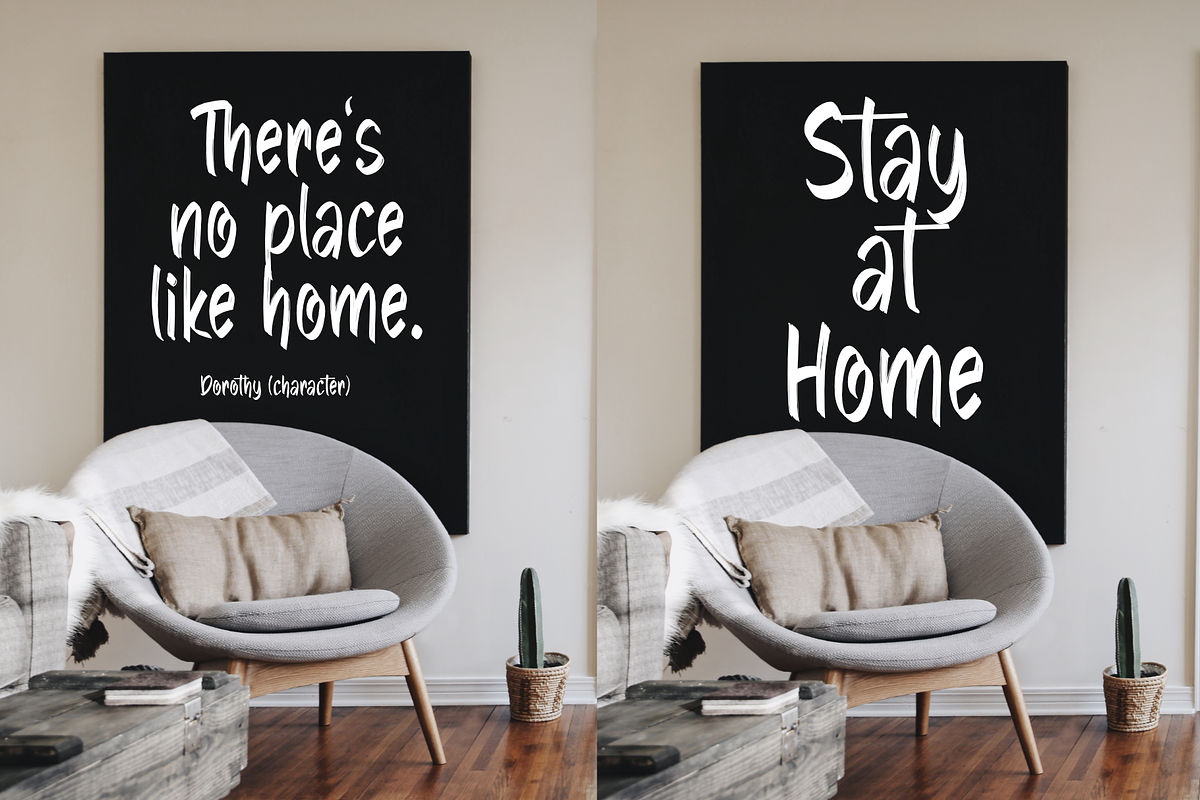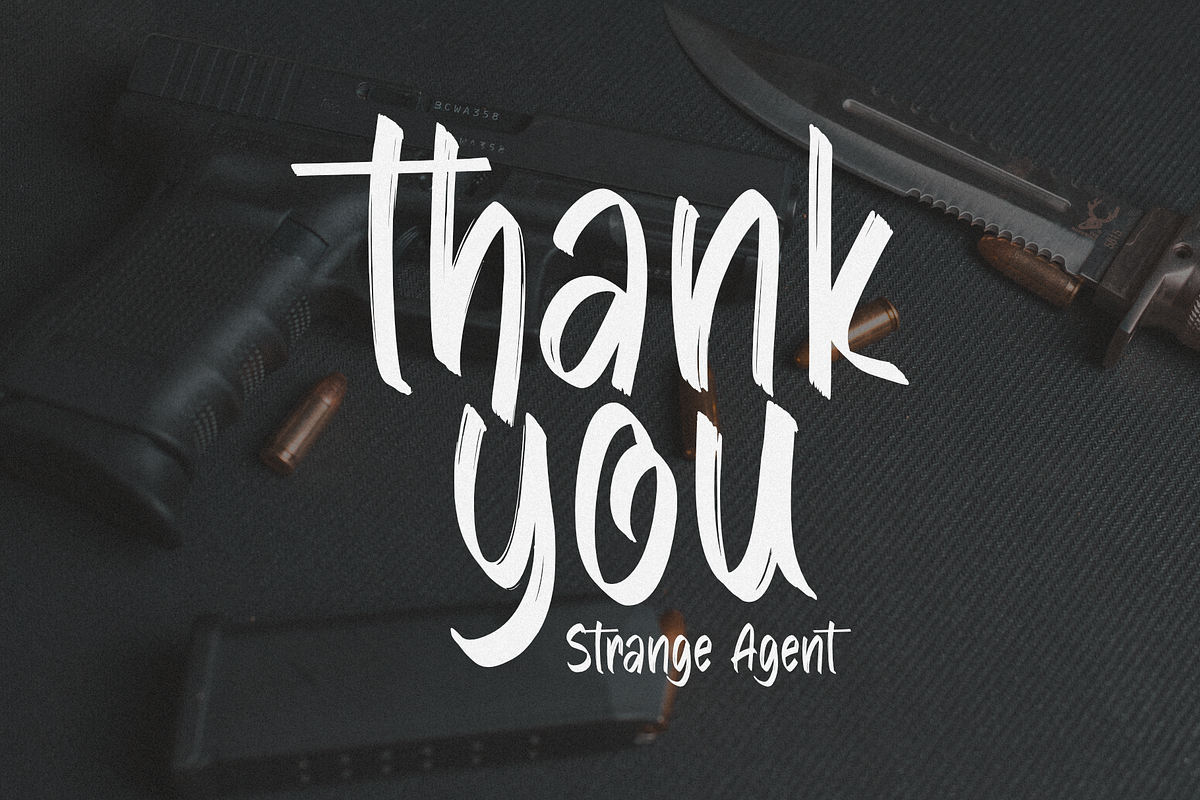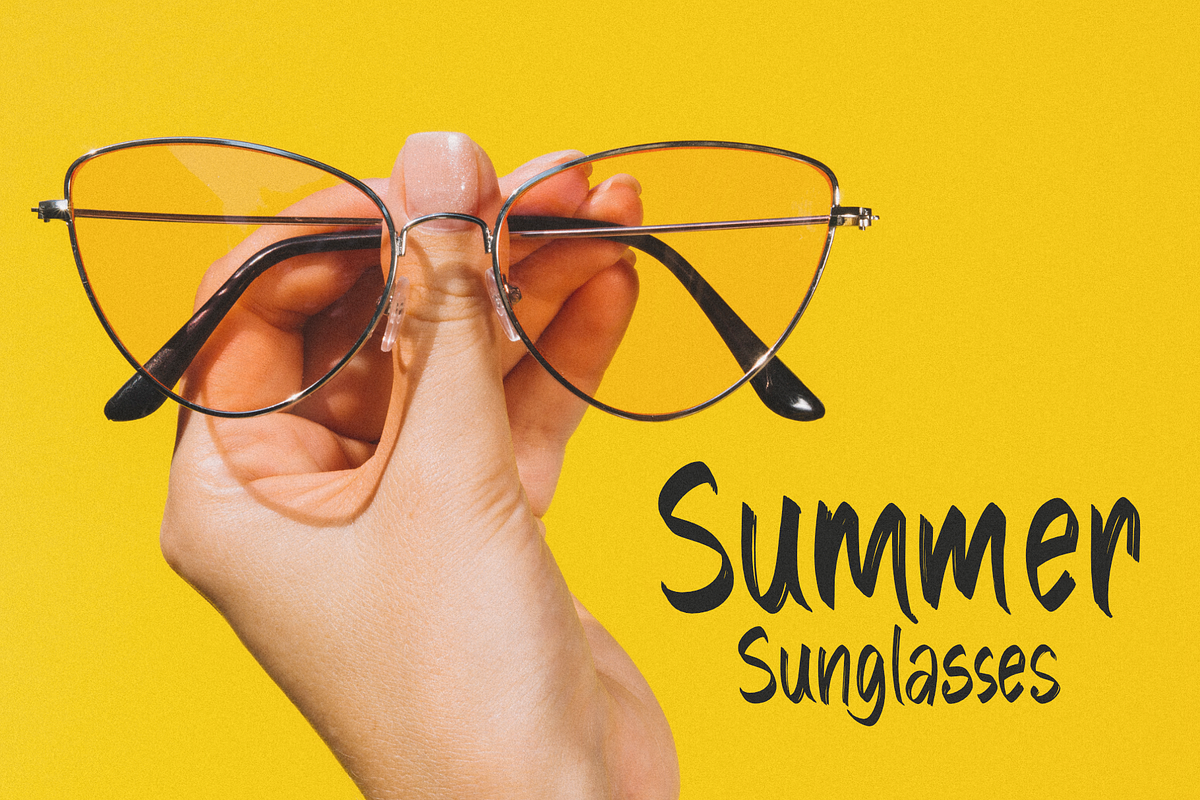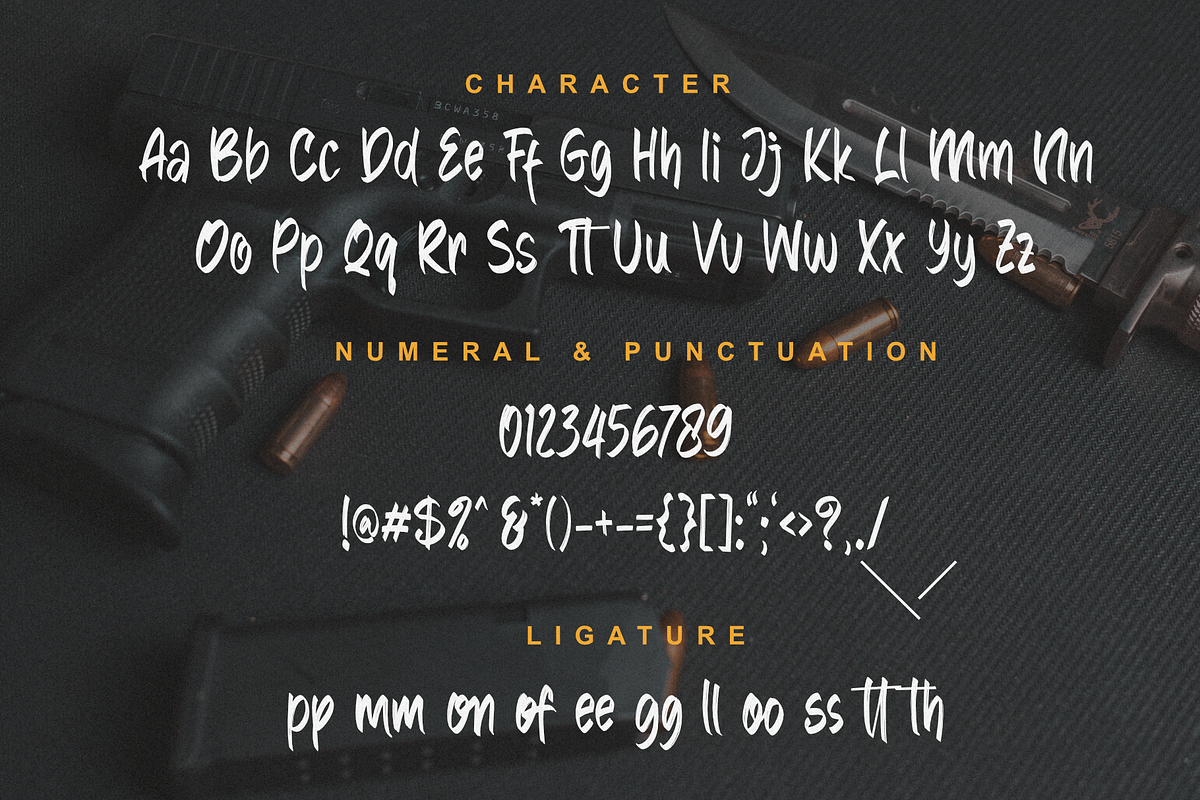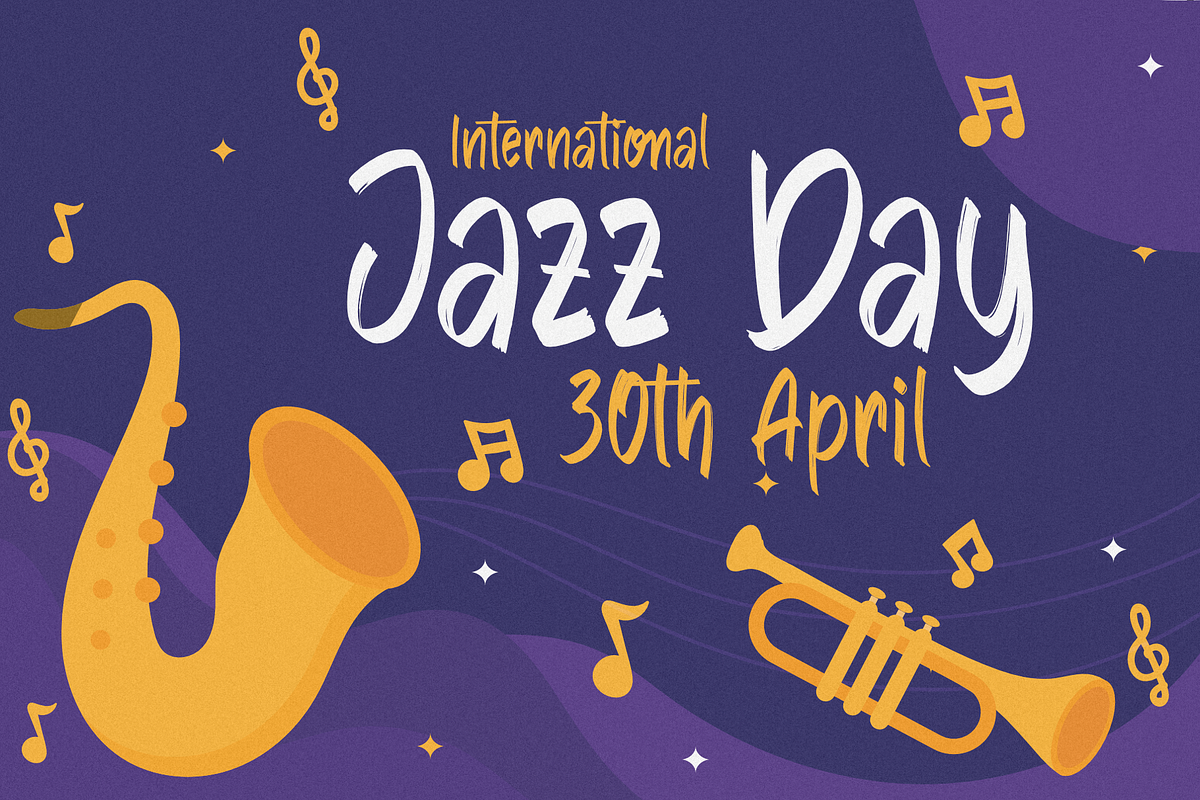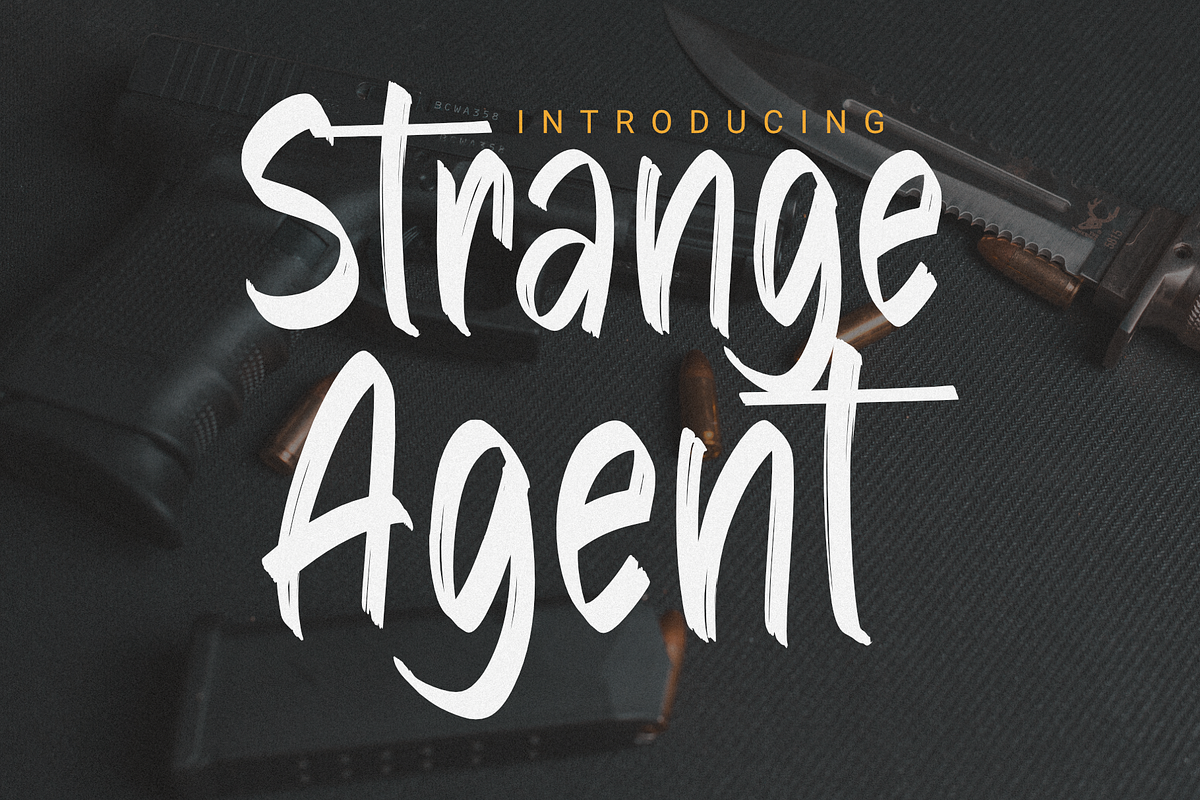
Strange Agent - Casual Brush
Strange Agent - Casual Brush is a font that goes well with procreate a relaxed, fun, and friendly atmosphere.
Strange Agent perfect for designs, logos, social media, brands, content, advertisements, product designs, quotes, product packaging, headers, posters, merchandise, and other designs.
- Multilingual Accent